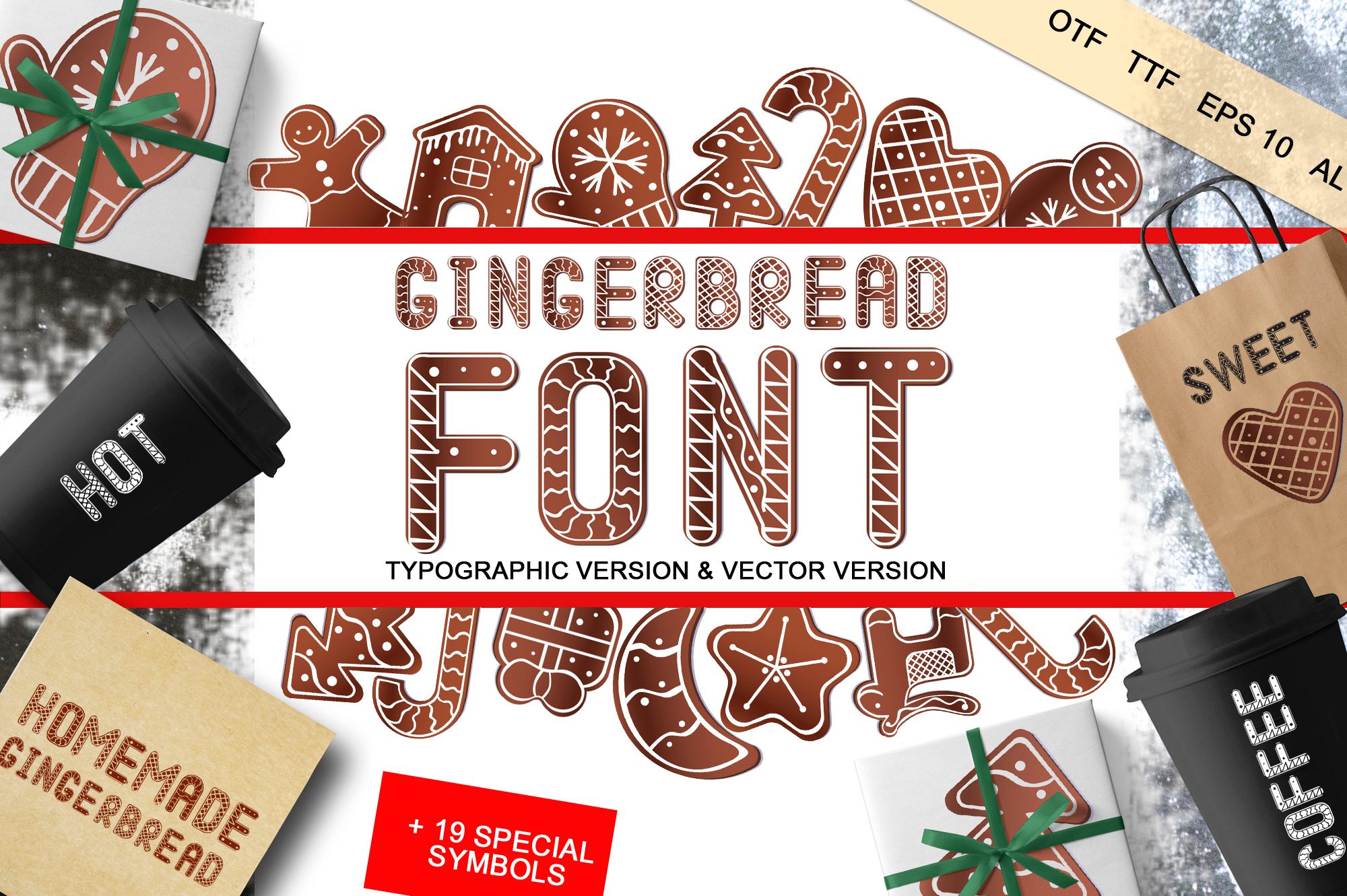
Winter is the time for chocolate gingerbread, Christmas tree, snowmen, mittens. I present to your attention the Gingerbread font. It contains English language letters, numbers and the special symbols listed above.
Also included are punctuation marks, 19 special symbols featuring a Christmas tree, gingerbread man, mittens, Christmas socks, gifts, Christmas ball and so on. Use them for decoration, design. A Gingerbread font is perfect for business. Vector symbols will decorate the packaging of goods, also use English language for text and numbers.
You can recolor the text. Gingerbread font is good in both dark and light. Use fishnet English letters, numbers, vector or typographic Gingerbread font however you like!
- When you download Gingerbread Font, you will get 2 versions of the font. The standard version consists of letters arranged in a row. The fun version of the Gingerbread font is made up of bouncing letters. Choose the version of the Gingerbread Font according to your needs. We tried to consider all of them. When you download Gingerbread Font, you will get 2 versions.
- If you download the Gingerbread Font, you will have access to special characters. You can find Christmas vector special symbols in the Vector Gingerbread symbols folder. Also special characters are embedded in the font. Type in # % @ ( ) characters like this and cute Christmas gingerbread characters will cheer you up